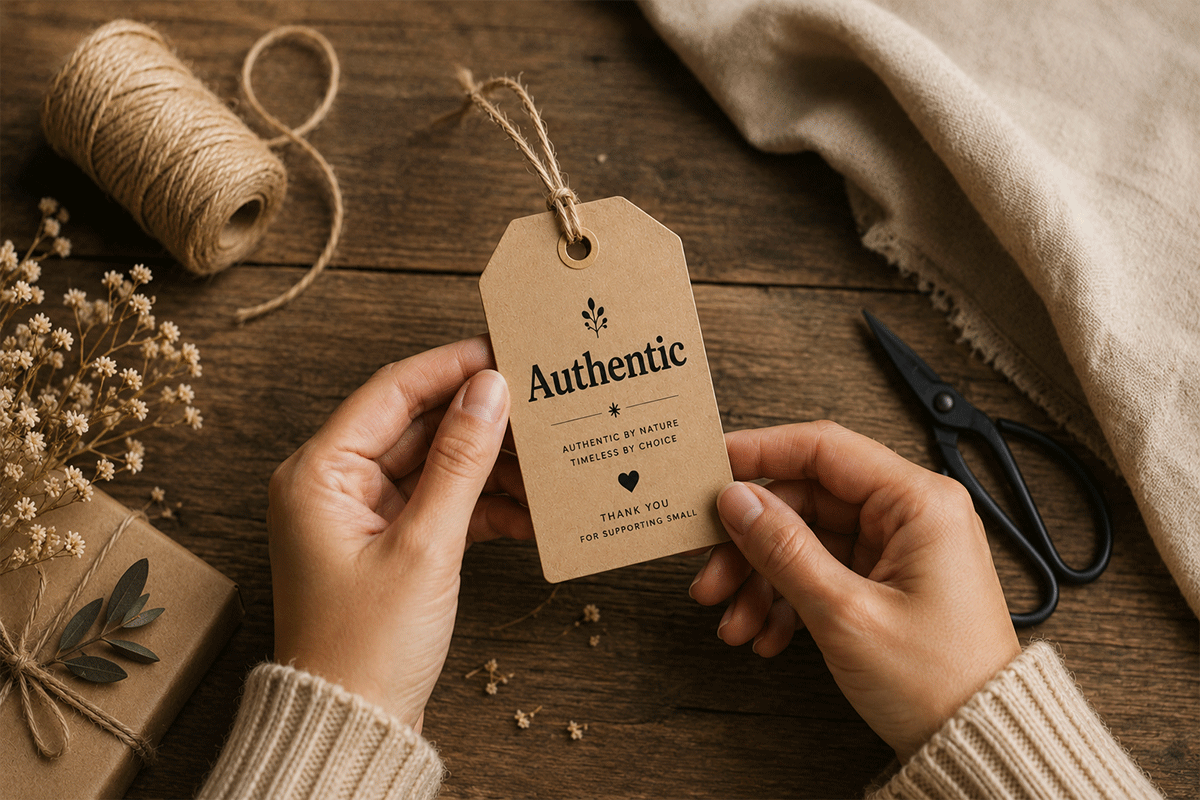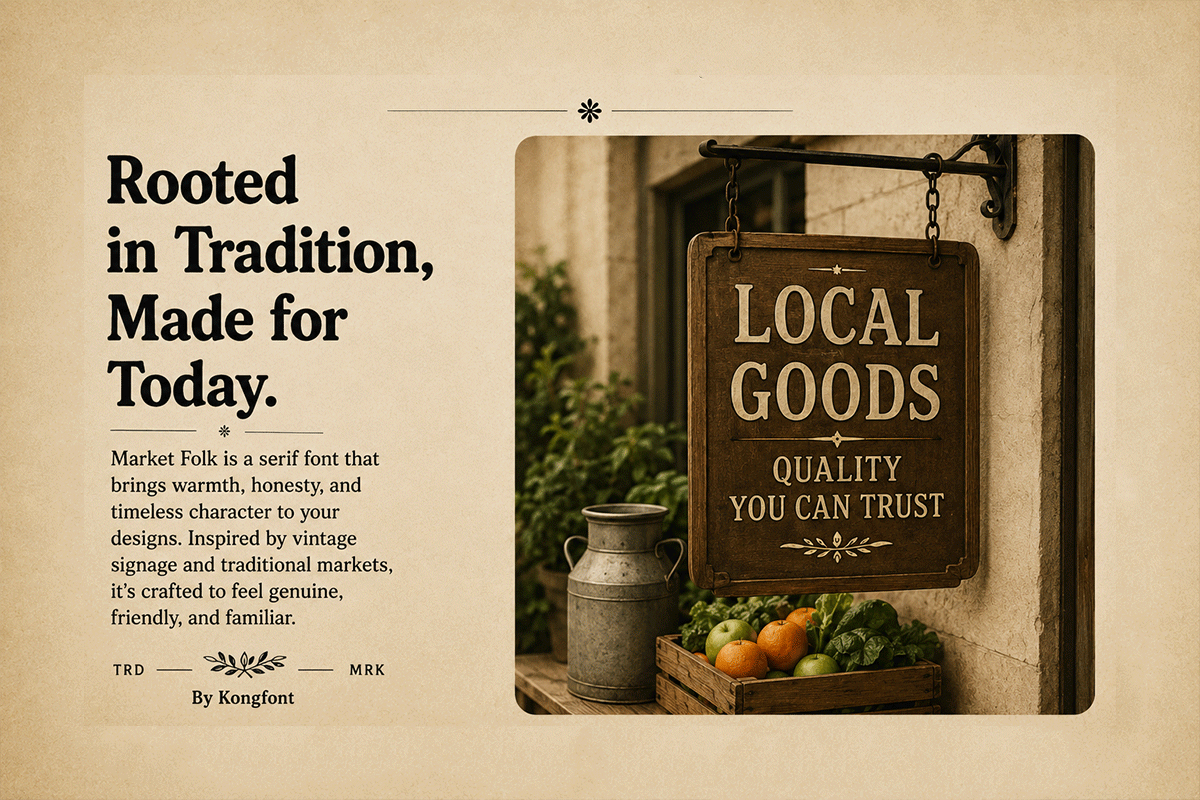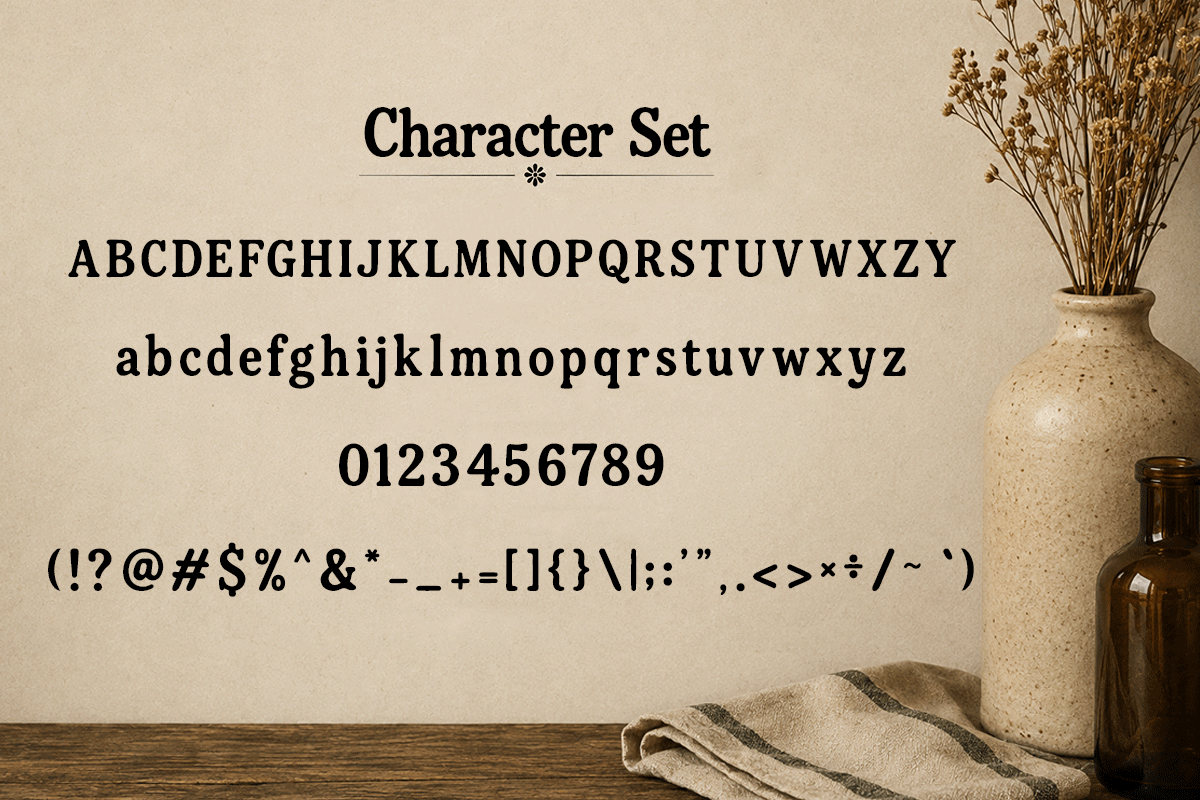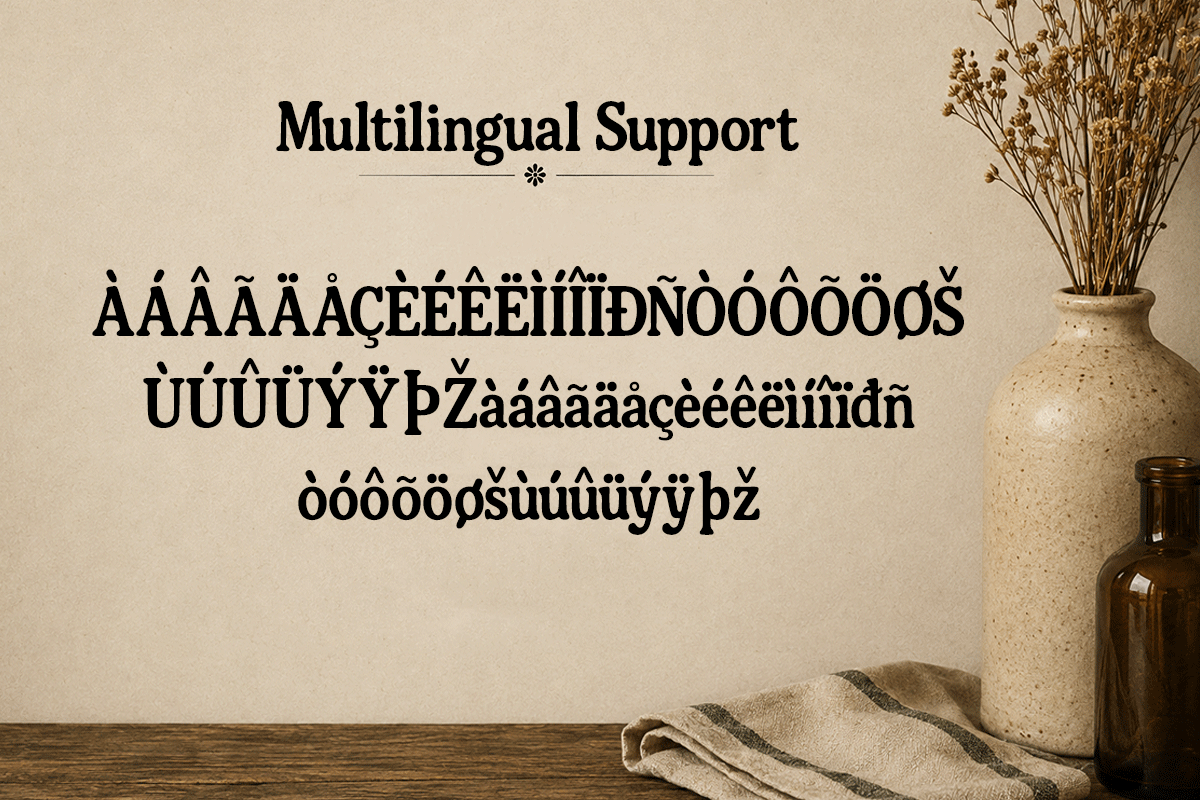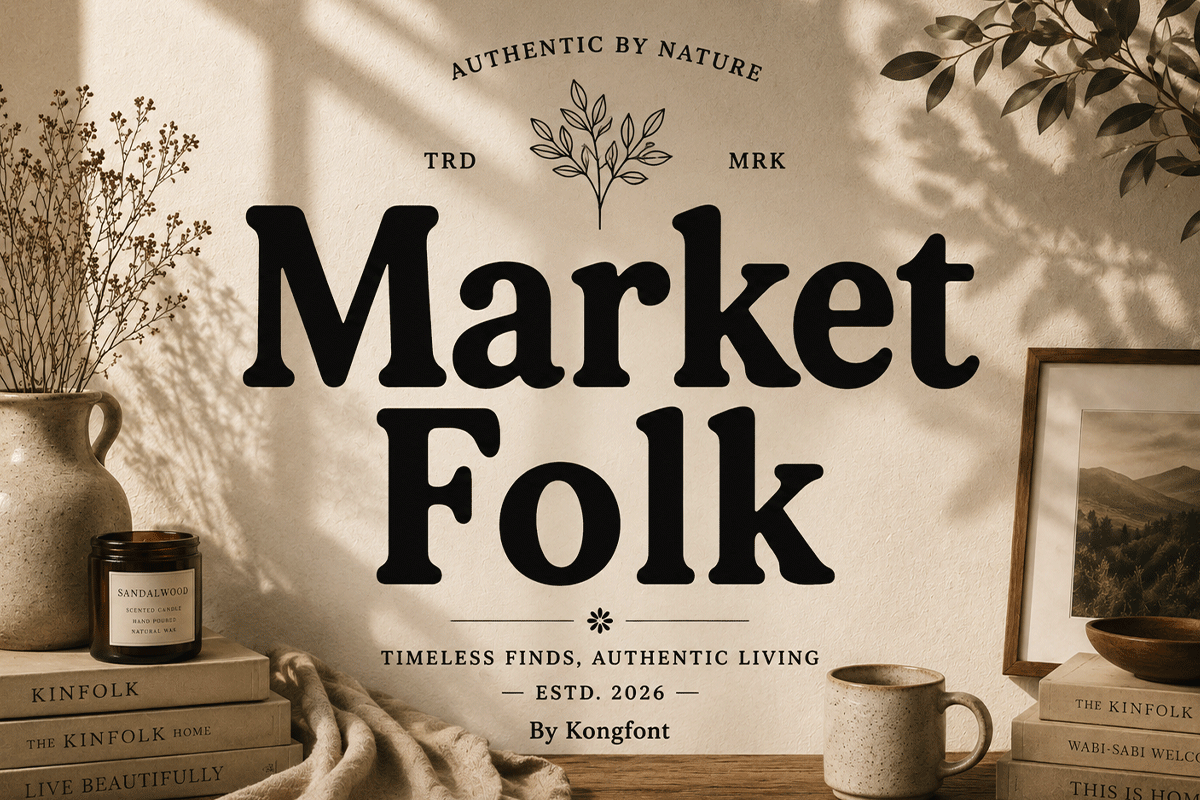
Market Folk A Modern Serif Bold Font is a warm vintage display font inspired by artisan markets, handcrafted goods, and timeless countryside charm. Featuring bold serif letterforms with soft curves and organic proportions, this typeface evokes the authenticity of traditional craftsmanship while maintaining a clean, modern feel. Whether you're creating branding for cafés, organic products, home décor, or boutique businesses, Market Folk A Modern Serif Bold Font delivers a welcoming and memorable personality that feels both nostalgic and contemporary.
Designed with versatility in mind, Market Folk A Modern Serif Bold Font captures the essence of slow living and natural aesthetics. Its distinctive shapes make headlines stand out while remaining highly readable, making it an excellent choice for branding projects that embrace warmth, simplicity, and authenticity.